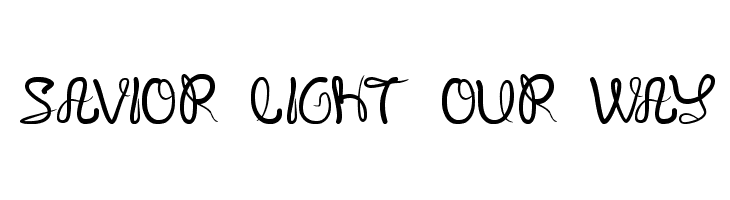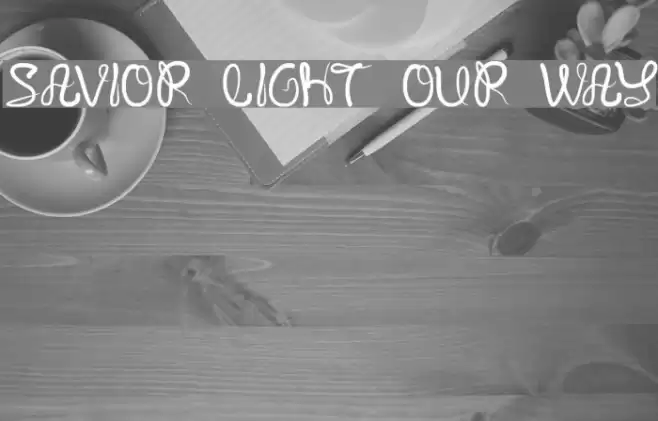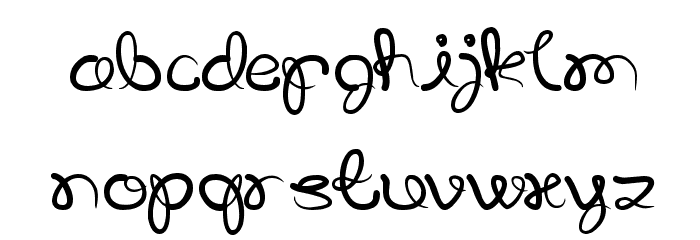
SAVIOR LIGHT OUR WAY Font
This font features an artistic and whimsical design, characterized by its flowing and interconnected letterforms. Each character exhibits a unique blend of curves and loops, creating a sense of movement and fluidity. The uppercase letters are bold and expressive, while the lowercase letters maintain a consistent style with slightly more subtlety. The overall appearance is playful yet sophisticated, making it suitable for creative and decorative applications. The font's intricate design elements add a touch of elegance and charm, making it stand out in any project.
An artistic and whimsical font with flowing, interconnected letterforms.
• Proposed Projects: Ideal for invitations, greeting cards, branding, and artistic projects where a decorative touch is desired.
• Category: Decorative/Display
• Contrast: Medium
• Overall Style: Decorative
• Use Case: Logos, Headlines, Artistic projects